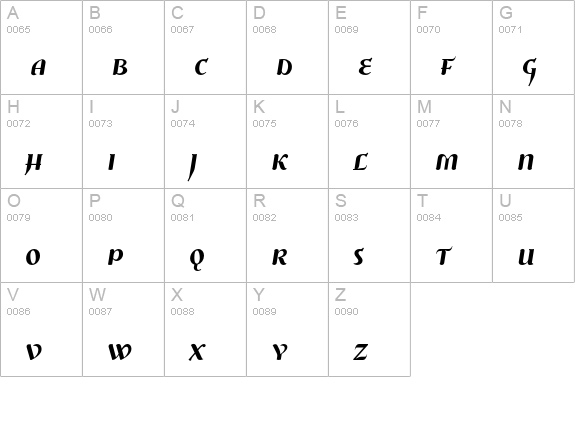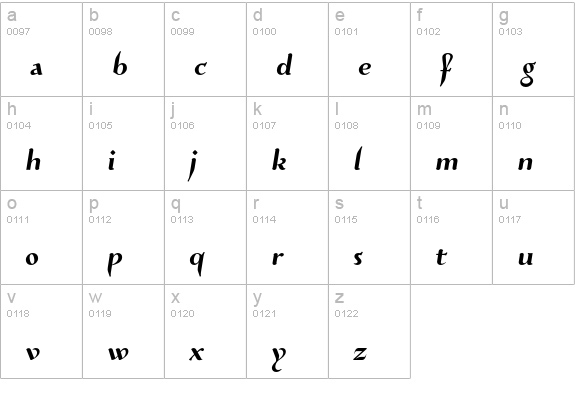
Risaltyp Font Details
Risaltyp font is a stunning typeface that exudes elegance and sophistication. With its sleek, modern lines and delicate curves, it is perfect for adding a touch of refinement to any design project. Whether you are creating a logo, designing a website, or crafting eye-catching marketing materials, Risaltyp font will elevate your work to new heights. One of the best things about Risaltyp font is that it is free. Yes, you read that right! This exceptional font is freely available to download at FontsMarket.com. You can easily access this font and start using it in your projects without spending a dime. This makes Risaltyp font not only a visually appealing choice but also an economically wise one. The versatility of Risaltyp font is another aspect that sets it apart. It is equally suitable for both print and digital media, ensuring that your message is communicated effectively across various platforms. Its clean and legible letterforms make it easy to read, while its stylish design adds a touch of sophistication to any text. The extensive character set of Risaltyp font allows for seamless multilingual support, making it a great choice for projects with global reach. Whether you are working on a website that needs to cater to an international audience or creating a brochure for a diverse clientele, Risaltyp font has got you covered. With its generous x-height and well-balanced letter spacing, Risaltyp font ensures excellent readability even at smaller sizes. This makes it perfect for body text in longer documents, such as books, magazines, or annual reports. Its elegant aesthetic adds a touch of refinement to any textual content, making it a pleasure to read. In conclusion, Risaltyp font combines timeless elegance with modern design elements, making it a versatile choice for a wide range of projects. And the best part? It is freely available to download at FontsMarket.com. So why wait? Enhance your designs today with the stunning Risaltyp font and let your creativity shine.